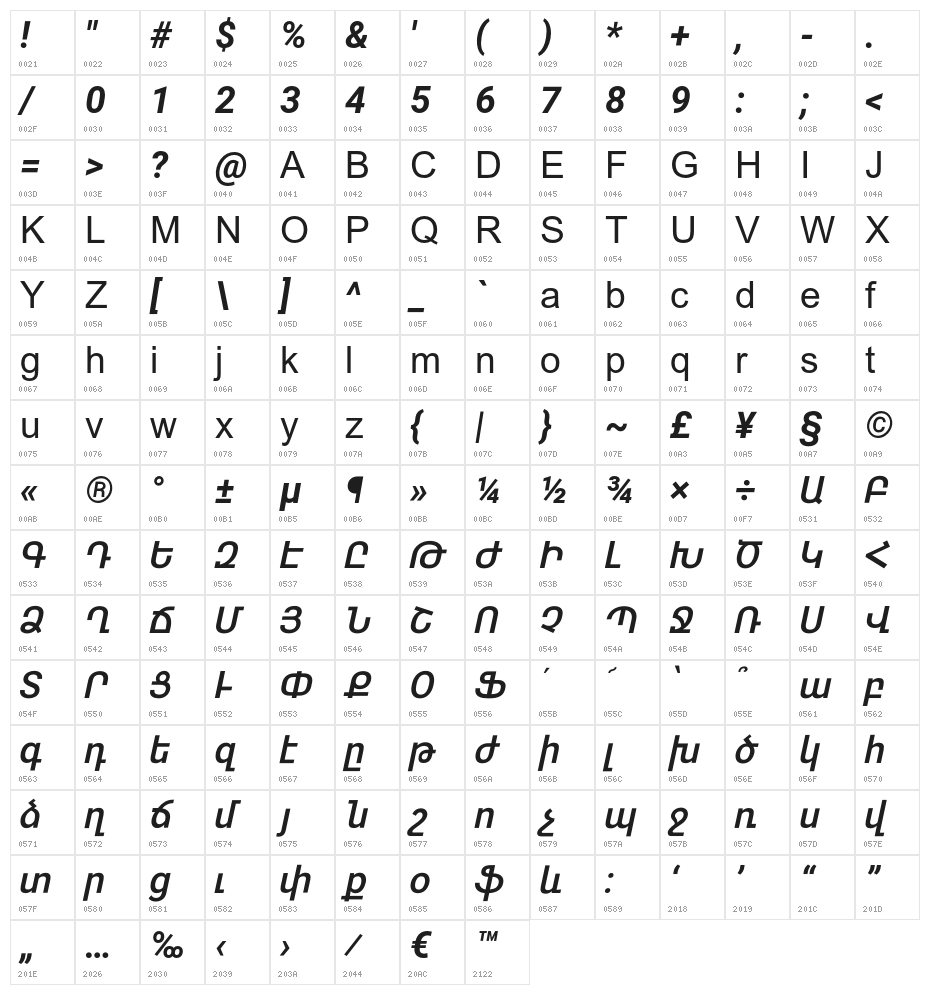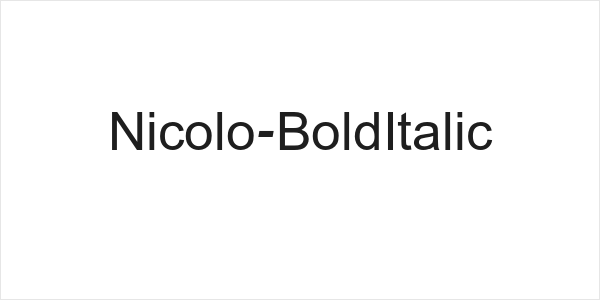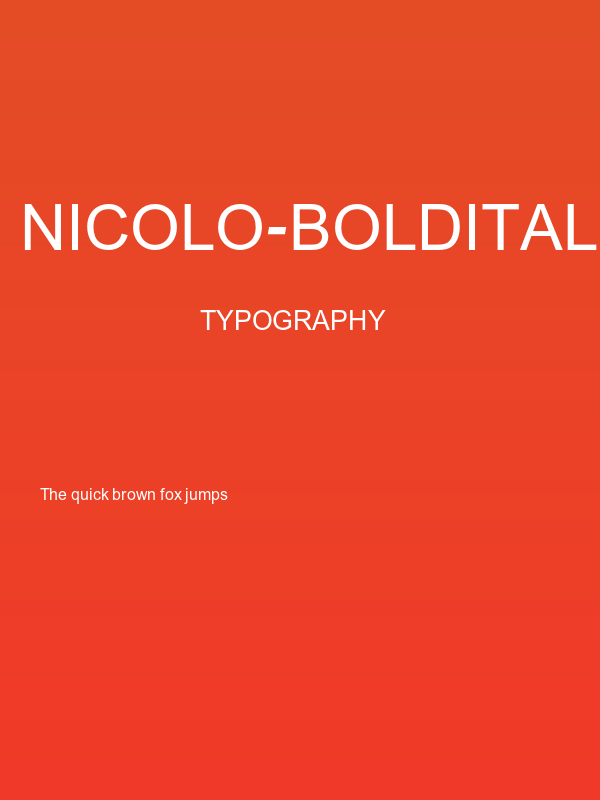
Nicolo-BoldItalic Font
Nicolo-BoldItalic Description
This font features a clean and modern sans-serif style with a bold and italicized appearance. The uppercase and lowercase letters maintain a consistent stroke width, providing a uniform and balanced look. The numerals are clear and distinct, with a slight slant that complements the italic style. Special characters are well-defined, ensuring readability and versatility. The overall design is sleek and contemporary, making it suitable for a variety of applications where clarity and impact are essential.